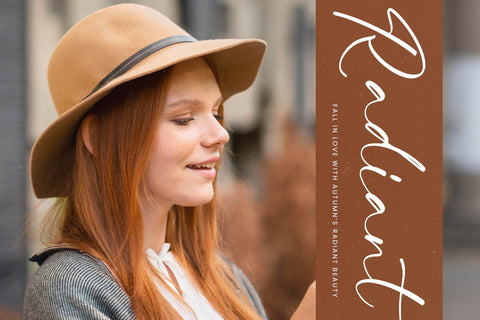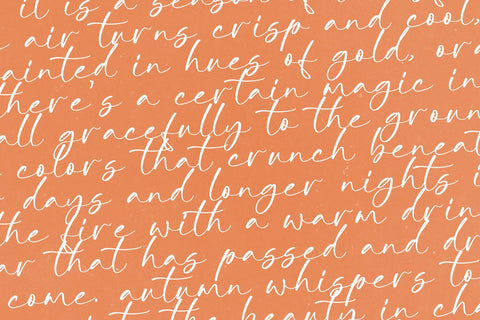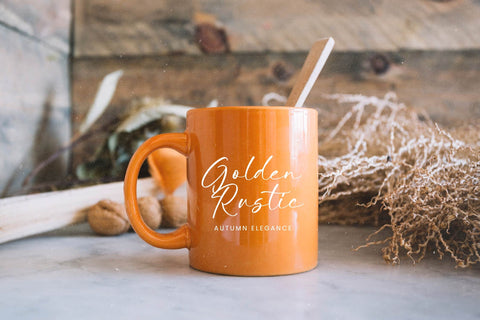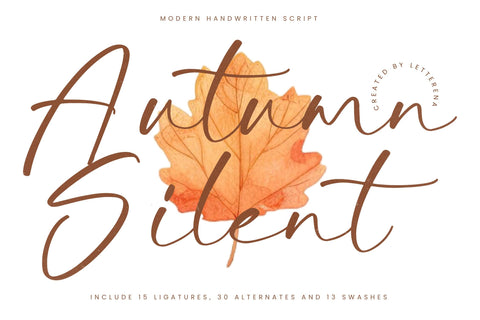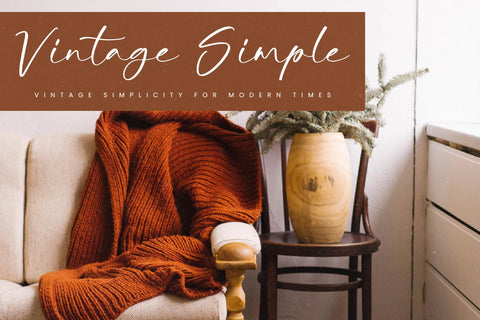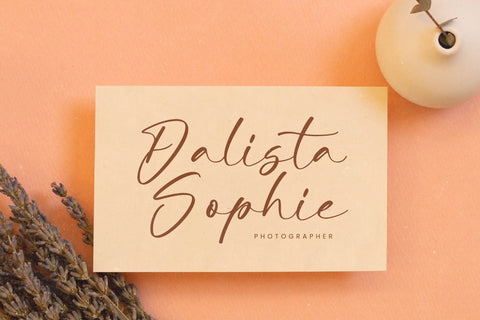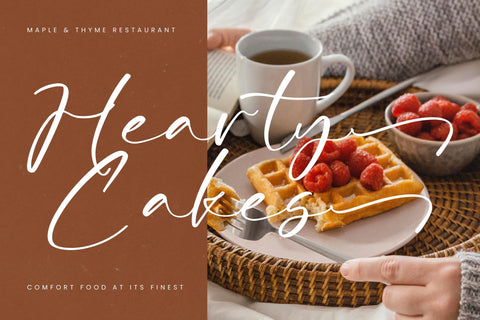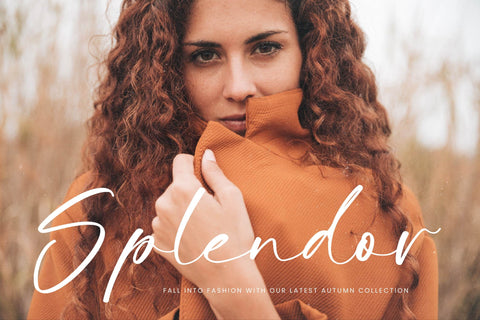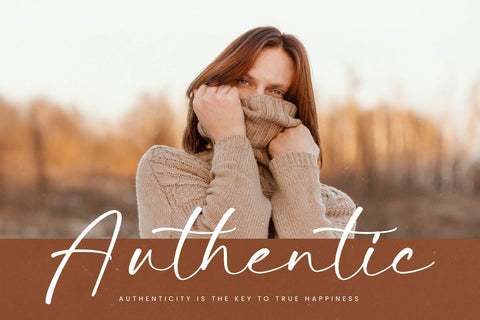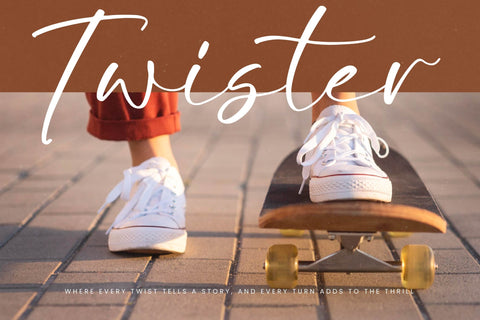
Autumn Silent - Modern Handwritten Script
Autumn Silent - Modern Handwritten Script , from Letterena, is a Luxury Script font, suitable for any projects such as: logos, branding projects, homeware designs, product packaging, mugs, quotes, posters, shopping bags, t-shirts, book covers, name card, invitation cards, greeting cards, label, photography, watermark, special events, and all your other luxury and beautiful projects that need a Luxury Script taste.